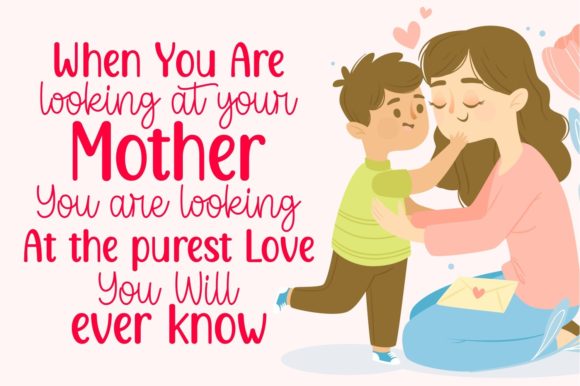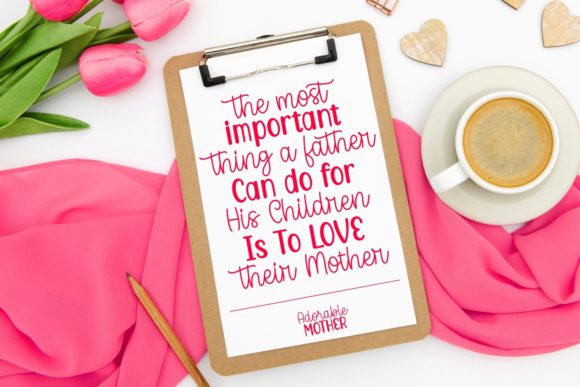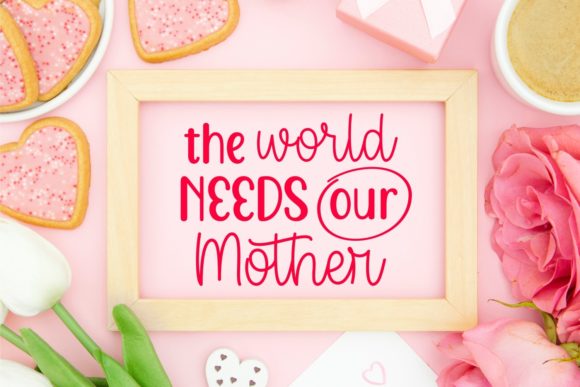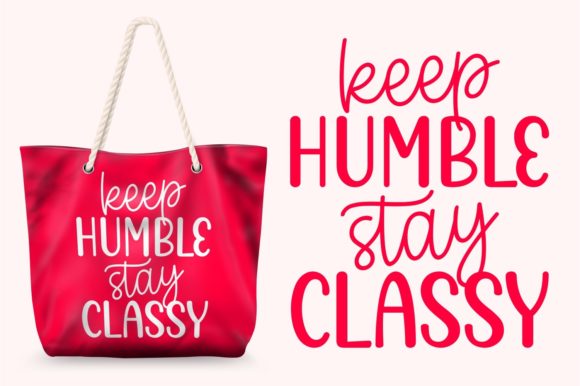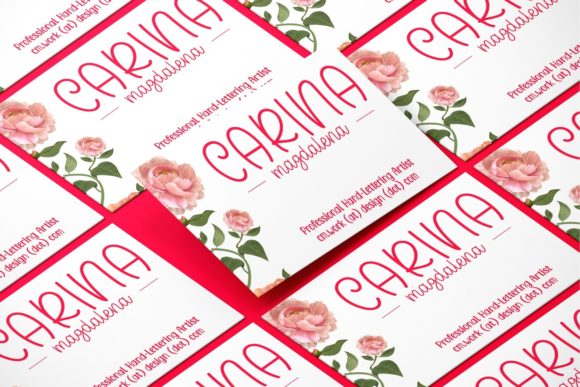
Unlocking the Power of Whimsy: The Adorable Mother Font
Do you remember the moment when you stumbled upon a font that made you feel like a kid again? For designers, this moment is a game-changer. It’s the spark that sets creativity ablaze and inspires new ideas. For us, that moment came when we discovered the Adorable Mother Font – a cute script font that’s perfect for adding a touch of playfulness to any project.
As a versatile font, Adorable Mother Font is designed to bring a smile to the faces of kids and adults alike. Whether you’re working on a kids’ book, a school project, or a branding campaign, this font is sure to add a dash of whimsy and charm. Its childlike playfulness makes it a valuable asset for designers looking to create engaging and memorable designs.
Key Features of Adorable Mother Font
- Font Style: Adorable Mother Font is a handwritten, cursive font with a playful and endearing feel, making it perfect for projects requiring a touch of warmth and personality.
- Unique Characteristics: The font features unique flourishes and swashes, adding a touch of whimsy and personality to any design project. The font also includes a range of ligatures and contextual alternates, allowing for a more nuanced and expressive look.
Designer Review: Adorable Mother Font
As a designer, I was excited to dive into the world of Adorable Mother Font. This font has a unique charm that’s hard to resist, and I’ll break down what works well and where it falls short.
- Cute and playful style: Adorable Mother Font is perfect for projects that need a touch of whimsy and fun.
- High-quality typography: The font is well-designed, with clear and crisp lines that make it easy to read.
- Great for hand-lettering: The font’s organic feel makes it a great choice for hand-lettering and custom illustrations.
- Limited versatility: While Adorable Mother Font is great for playful projects, it may not be the best choice for more formal or professional designs.
- Not ideal for small text: The font’s playful style can make it difficult to read in smaller text sizes.
- No comprehensive font family: Adorable Mother Font is a single font, which may limit its usability in certain design scenarios.
Adorable Mother Font is a delightful addition to any designer’s toolkit. While it may have some limitations, its unique charm and high-quality typography make it a great choice for the right projects. If you’re looking for a font that adds a touch of whimsy to your designs, Adorable Mother Font is definitely worth considering.
Here are some tips to get the most out of Adorable Mother Font:
- Use the font for designs that require a playful and whimsical touch.
- Pair the font with other playful fonts for a unique look.
- Use the font for designs that require a sense of warmth and friendliness.
- Experiment with different font sizes and styles to create a unique design.